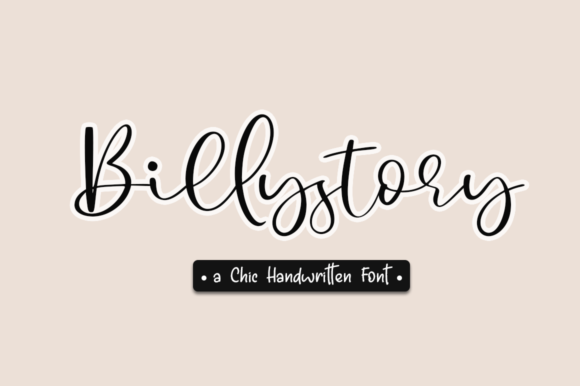
The Elegance of Billystory Font: A Designer’s Delight
I still remember the time I was working on a wedding invitation project, and my client asked for a font that exuded elegance and sophistication. I scoured the internet, tried out countless fonts, but nothing seemed to fit the bill. That was until I stumbled upon Billystory Font. ✨ It was love at first sight! The stylish and elegant script font instantly captured the essence of what I was looking for. In this article, I’ll share my experience with Billystory Font, its features, and how to make the most of it in your designs.
An Honest Review of Billystory Font
• ✨ Elegant and sophisticated script font perfect for wedding invitations, thank you cards, and greeting cards
• 💫 Beautifully crafted with intricate details, giving it a handmade touch
• 🎨 Versatile and can be used for a variety of design projects, from logos to business cards
While Billystory Font is an excellent choice, there are a few things to keep in mind: 🤔
• ⚠️ It may not be the best choice for body text, as it’s a script font and can be challenging to read in large blocks
• ⚠️ Some characters may not work well in all contexts, so it’s essential to test the font thoroughly
A Practical Guide to Using Billystory Font
3. Experiment with OpenType features, such as glyphs and stylistic alternates, to add personality to your design
The Backstory of Billystory Font
Billystory Font was designed with the intention of creating a beautiful, elegant script font that captures the essence of handwritten writing. The designer aimed to create a font that would be perfect for special occasions, such as weddings and anniversaries. 💕
Author Haksen
What is Billystory Font best used for? Billystory Font is ideal for wedding invitations, thank you cards, quotes, greeting cards, logos, business cards, and any other design that requires a handwritten touch.
Is Billystory Font suitable for body text? No, Billystory Font is a script font and may not be the best choice for body text, as it can be challenging to read in large blocks.